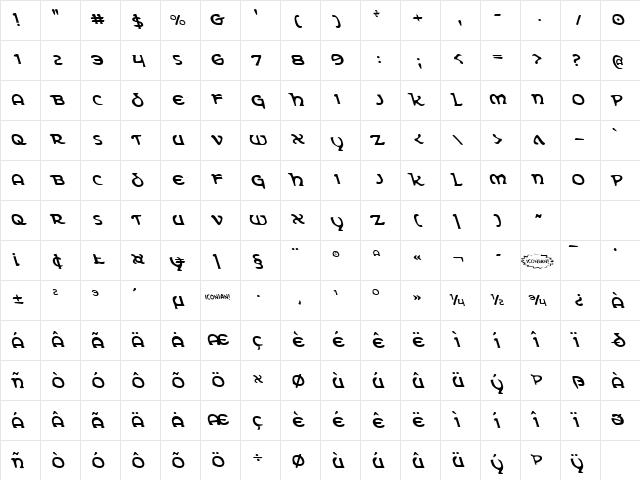
Erin Go Bragh Leftalic Italic
Design Context for Erin Go Bragh Leftalic
Erin Go Bragh Leftalic is a composed and adaptable typeface that performs quietly and consistently across a wide range of design contexts. The slanted form adds forward momentum and visual energy.
Pro Tip: Use Erin Go Bragh Leftalic for emphasis, pull quotes, and subheadings where its slanted energy can add rhythm to the layout.